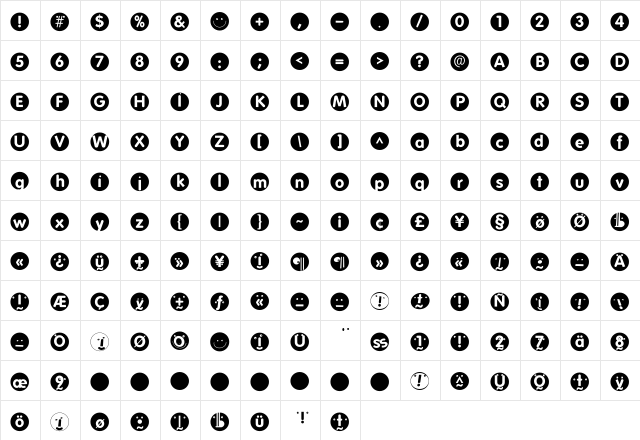
FolksCircleNegative Regular Font Preview
FolksCircleNegative Regular
FolksCircleNegative Regular Font Details
Design Context for FolksCircleNegative Typeface
FolksCircleNegative takes a measured approach to typography — its balanced proportions and neutral character make it a reliable workhorse for both digital and print work.